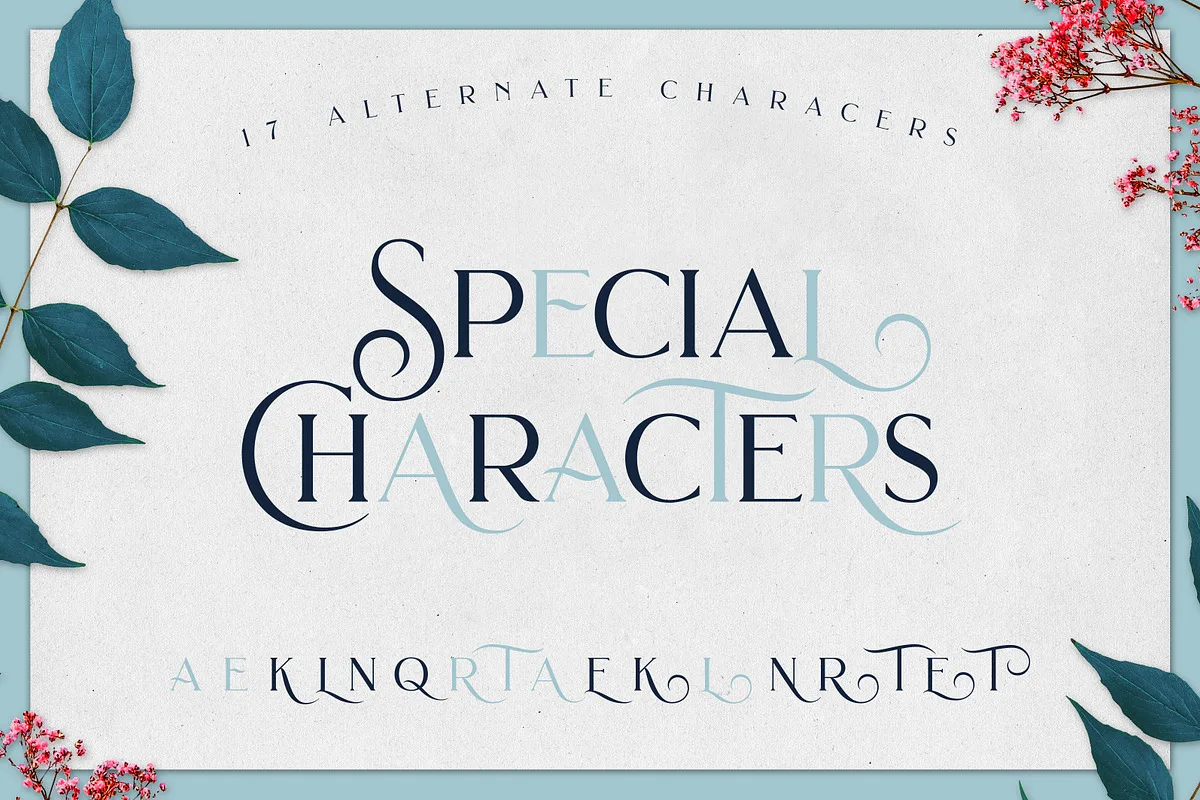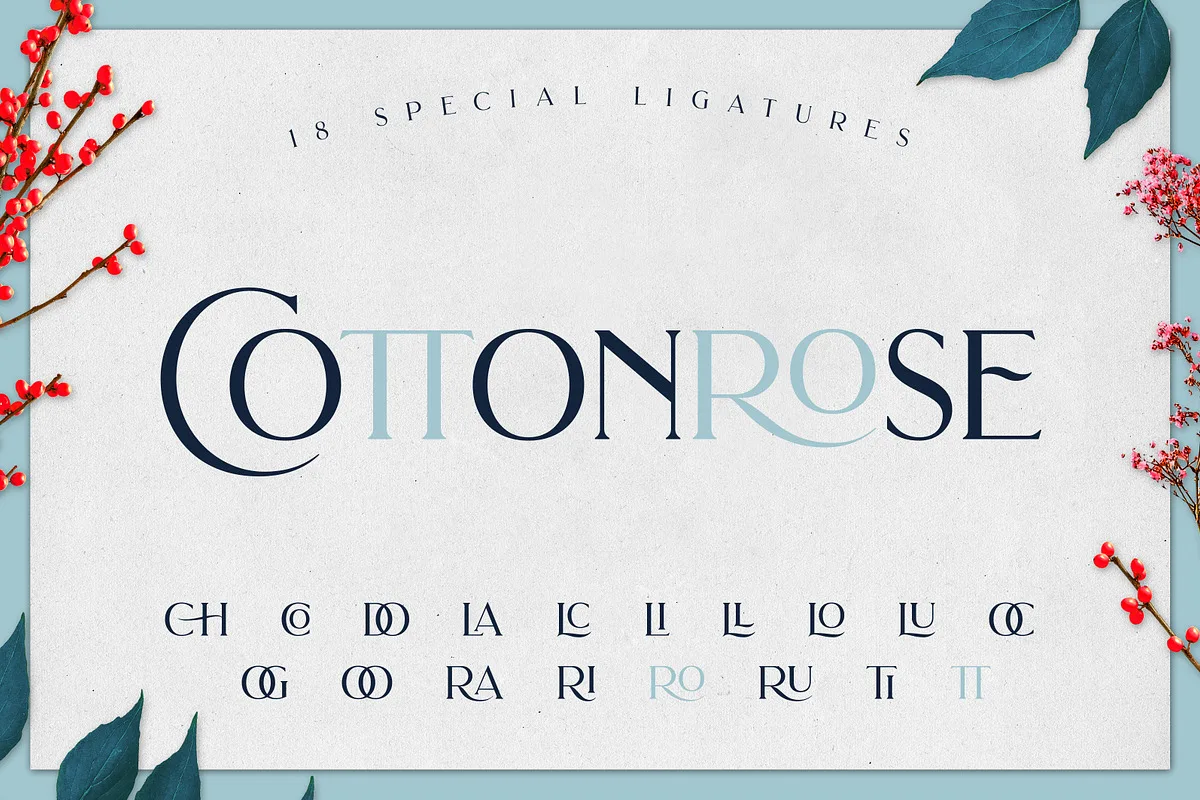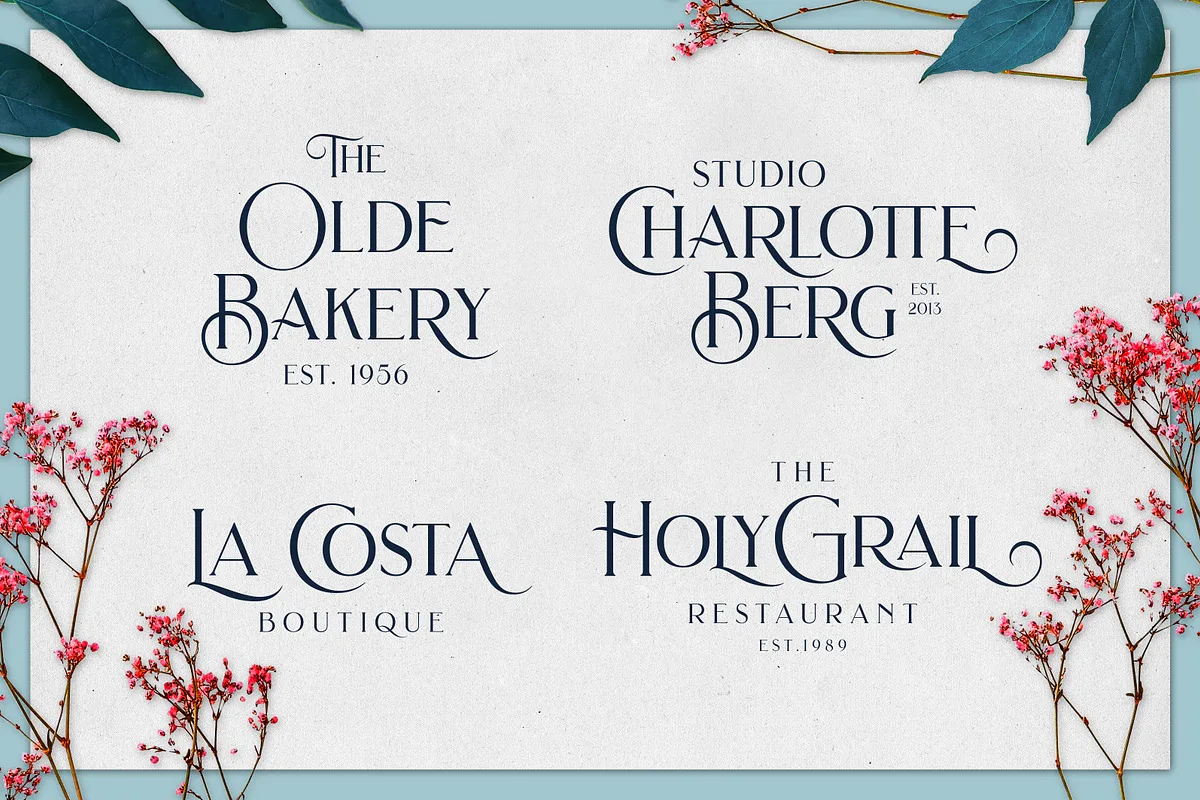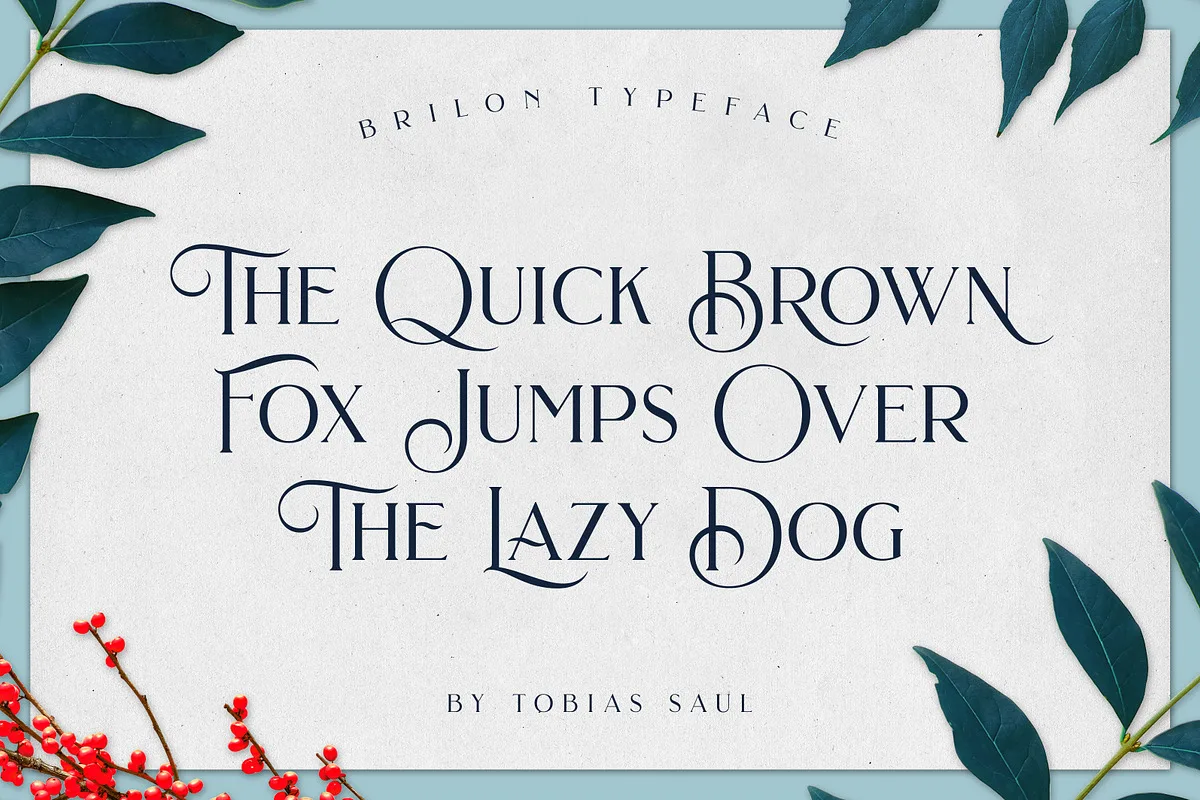
Brilon is an Art Deco revival serif from Heritage Type Co. — geometric, high-waisted and deliberately restrained, the kind of lettering you would find on a 1920s theatre bill or a perfume bottle. What separates it from the wave of generic vintage serifs is that it is not a straight historical copy: the proportions are tightened and the details simplified so it still reads as modern rather than as costume.
Glyph features and how to reach them
The character set covers A–Z with a set of special uppercase letters, plus stylistic alternates, ligatures, numerals and punctuation. Accented characters are included for Western European languages. The alternates are the reason to buy this font rather than a free Art Deco lookalike — but they are not automatic. You need software that supports OpenType features (Adobe Creative Suite, Affinity, or the glyphs panel in most professional apps) to reach them; in Canva or Word you will only ever see the default letterforms.
Where Brilon works
Art Deco serifs are display faces and Brilon is no exception — it belongs on a logotype, a menu header, a spirits label or an invitation, set large with generous letter-spacing so the geometry has room to read. It is a poor choice for running body text: the high contrast between thick and thin strokes that makes it elegant at 60pt turns into a grey mush at 11pt. Pair it with a plain sans for everything that is not the headline.